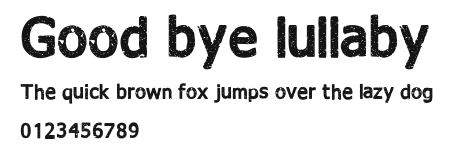
• Font Name: Good bye lullaby
• Full Font Name: Good bye lullaby
About Good bye lullaby.ttf
Good bye lullaby.ttf is a modern, elegant sans-serif font designed for ultimate readability and visual harmony. Perfect for branding, headlines, web design, and print materials.